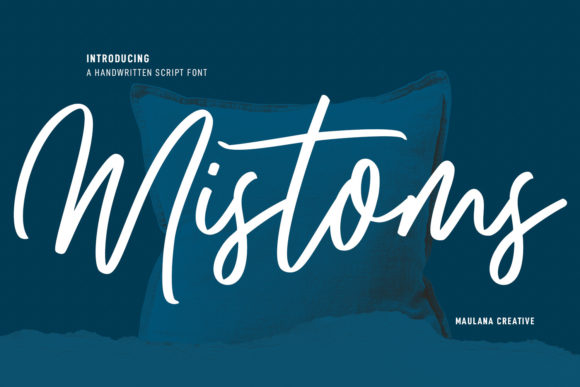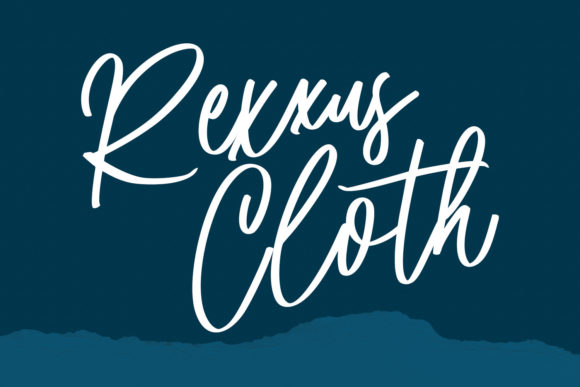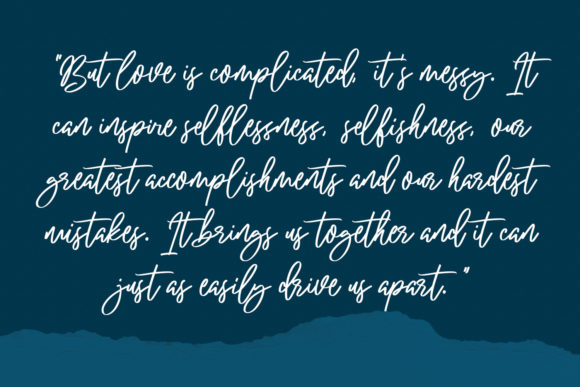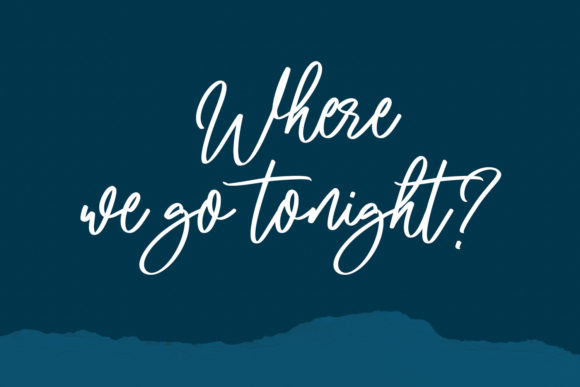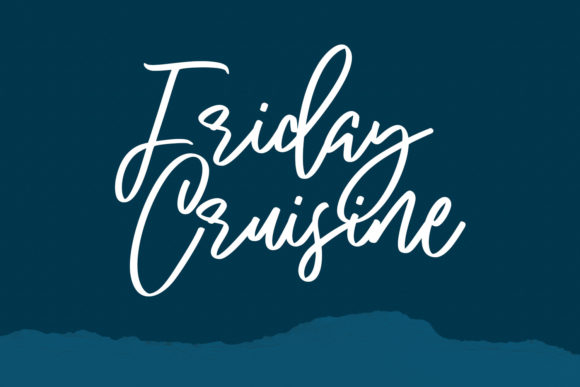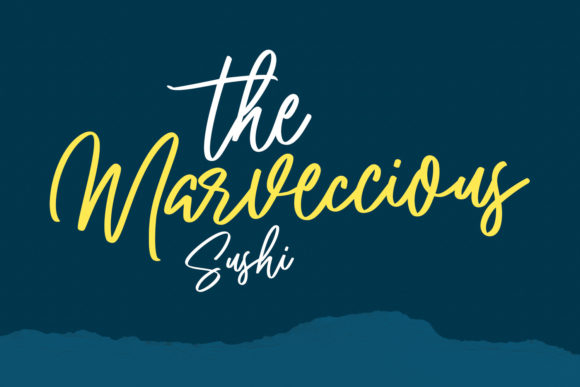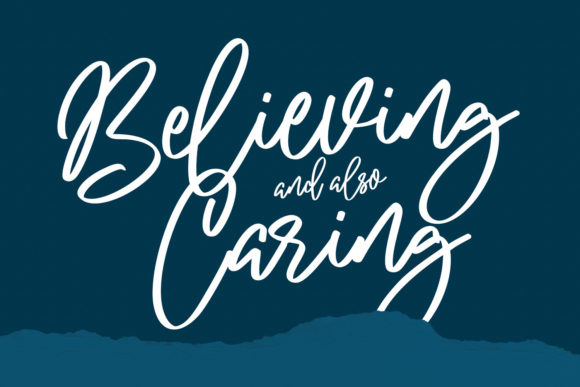
About Mistoms Font
Mistoms is a casual script font. It features medium contrast strokes, fun characters, ligatures and alternates. This font is imposing and features uniquely shaped letters, and as a result, it will easily match a wide range of creations that require a distinct touch.Â